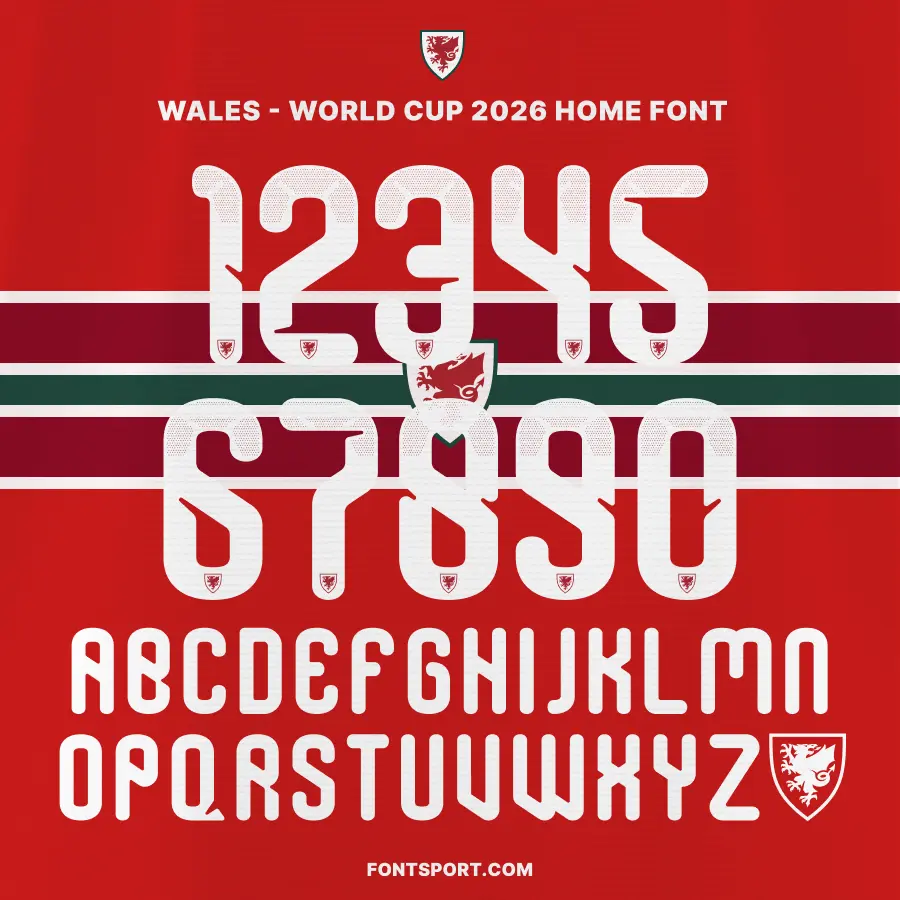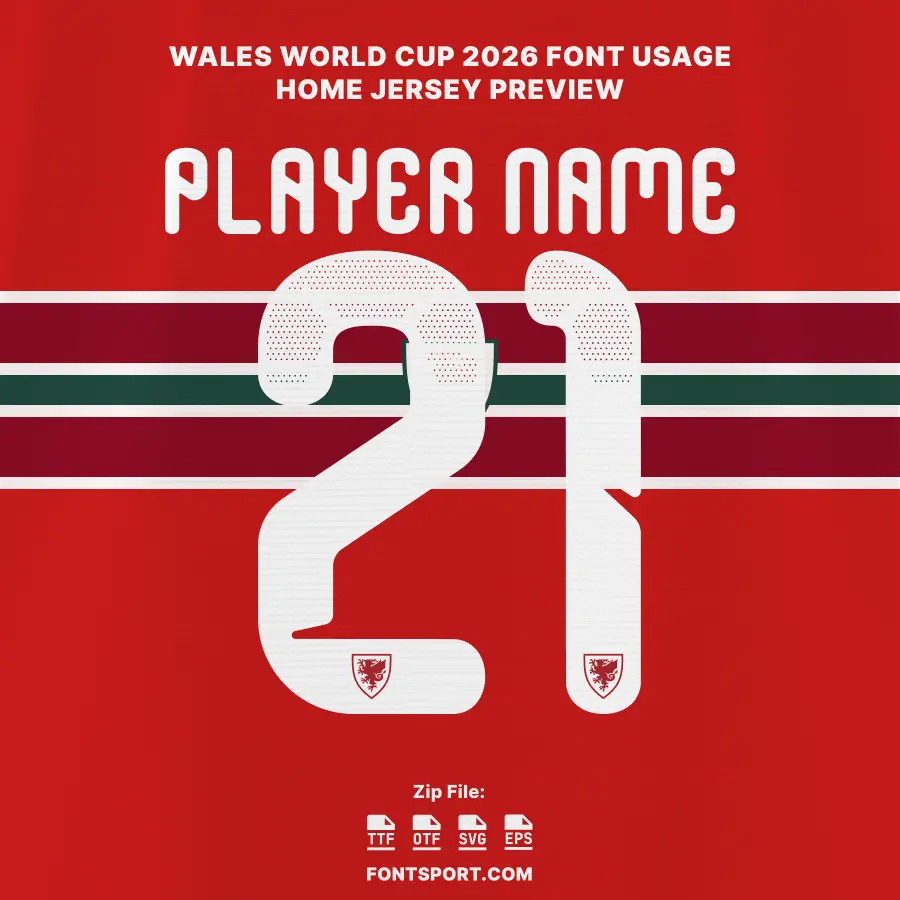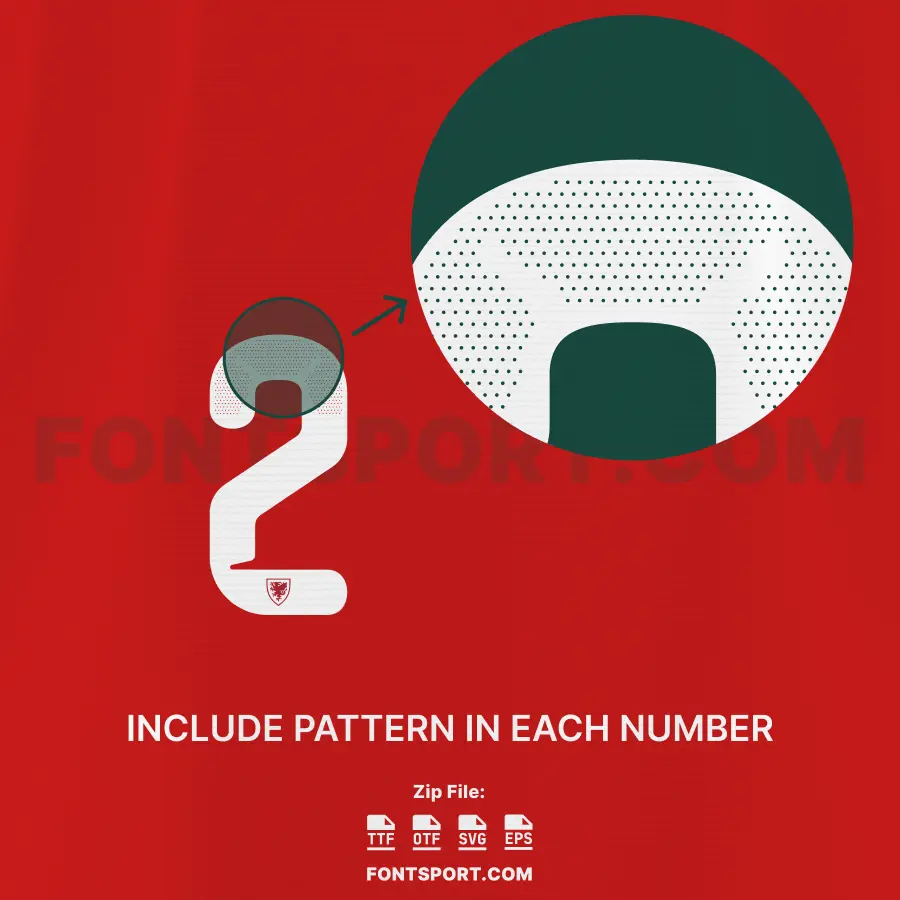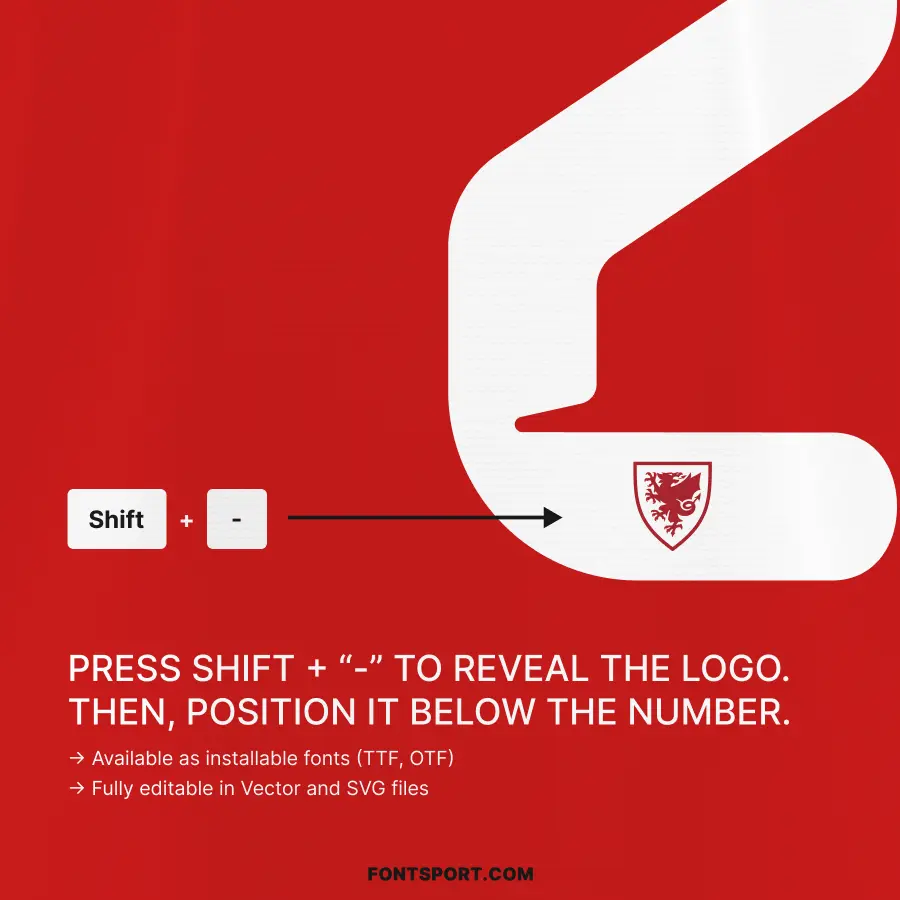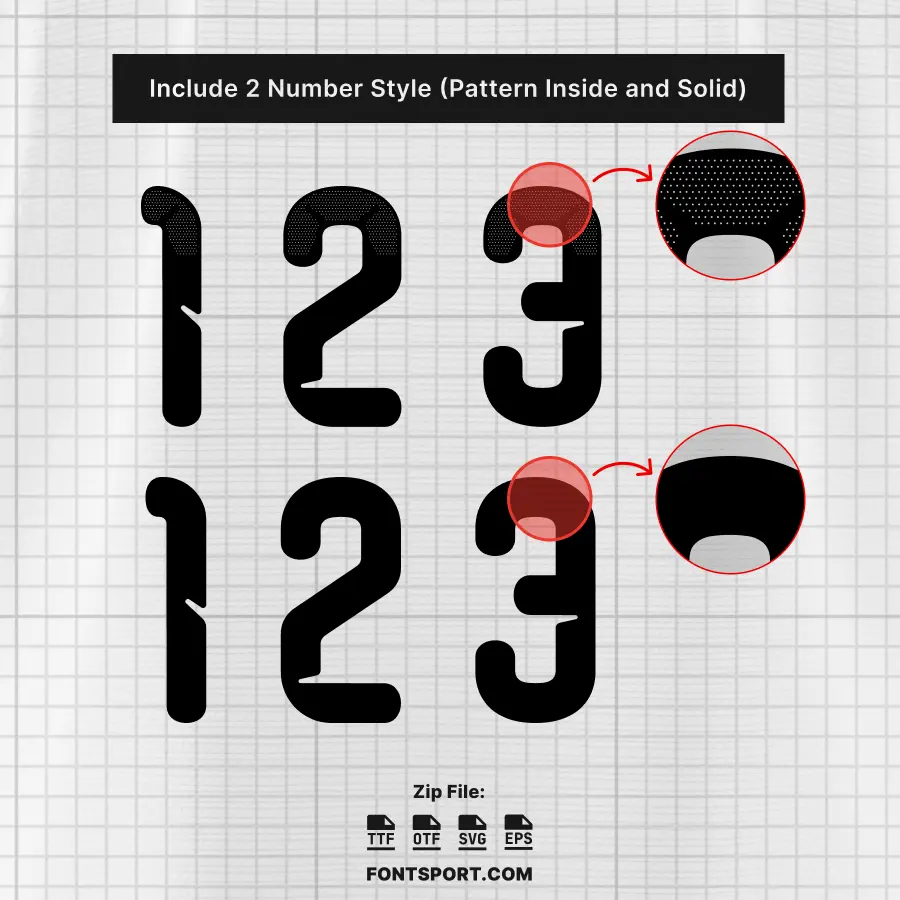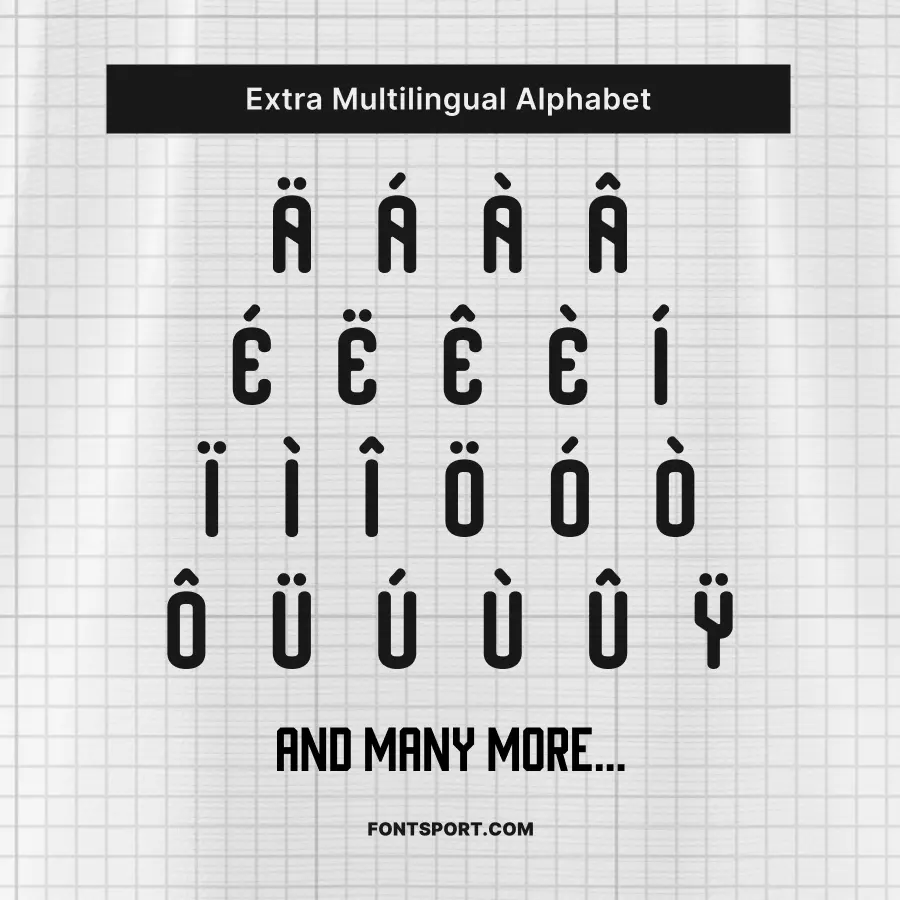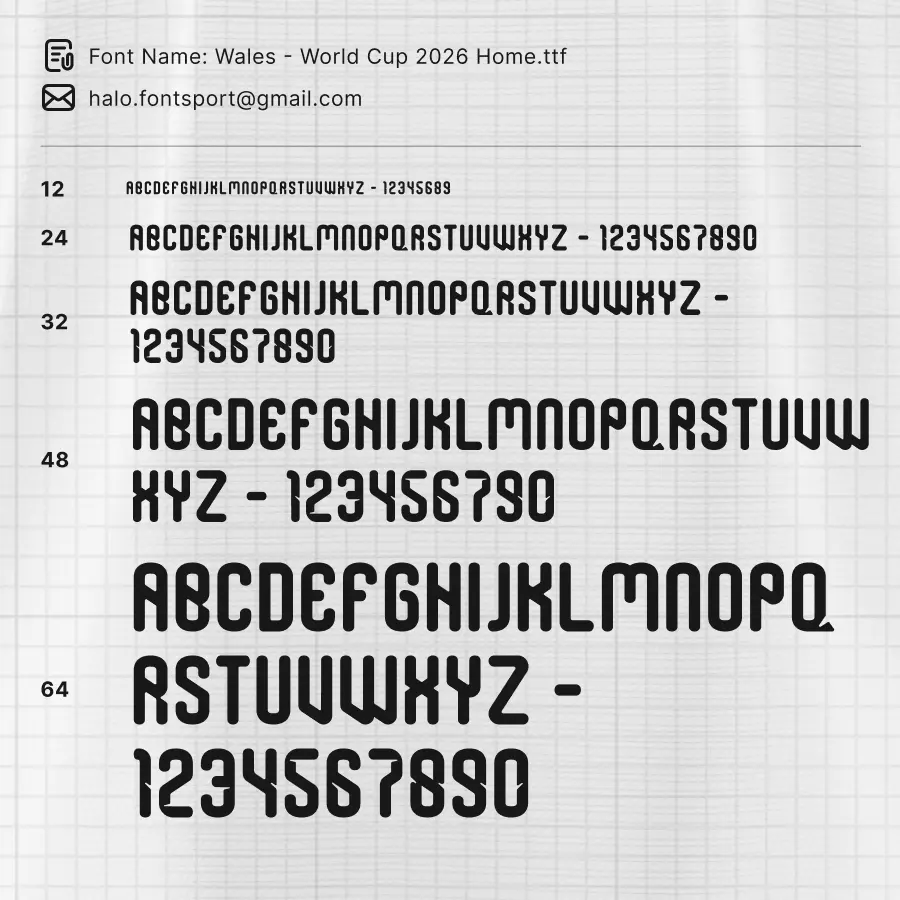
Bring Welsh National Team Style to Your Designs
The Wales World Cup Home 2026 Font Kit allows you to embed the proud identity of Wales’s national football team into your creative work. Inspired by the typography of the home jersey designed for the FIFA World Cup 2026 campaign, this football font is perfect for jersey mock‑ups, fan merchandise, match‑day posters and digital content. Whether you are a designer, a fan, or a creative hobbyist, this kit gives you a full toolkit to work with.
✅ Uppercase letters A–Z and numerals 0–9 for names and numbers
✅ Built‑in logo glyphs so you can just type to display Wales’s crest
This font for jersey gives you flexible, high‑impact typography that fits both print and digital workflows. It’s designed for readability and style.
Why Use This Sport Font
Create custom match‑day jerseys, design fan‑art posters, print banners, or craft merchandise—all using the same visual language. Moreover, the vector versions guarantee crisp edges no matter the size. In addition, using the logo glyphs embedded in the font simplifies your workflow by removing the need for separate crest image files.
Wales have unveiled their new World Cup 2026 home kit, featuring a scarlet red base and a bold horizontal stripe pattern in dark green, red and white. The design also incorporates the word “CYMRU” subtly within the chest stripe as a nod to national identity.
These updates reflect Wales’s emphasis on identity and modern design as they prepare for the World Cup—ideal narrative context for your font kit.